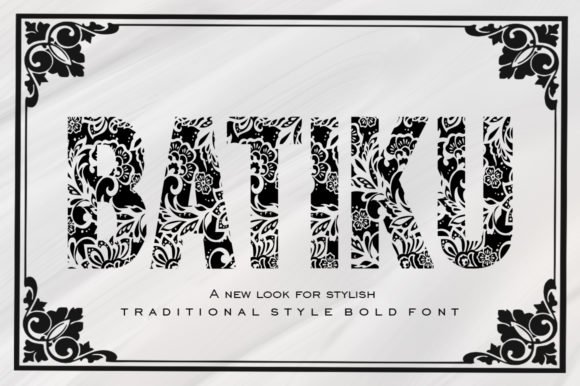
Unleash the Beauty of Batiku Font: Elevate Your Designs
Have you ever stumbled upon a design that perfectly captures the essence of a cultural heritage, transporting you to a world of vibrant colors and intricate patterns? For designers, it’s that magical moment when creativity meets inspiration – and it’s exactly what the Batiku Font embodies.
As a decorative font inspired by the traditional batik style, the Batiku Font is designed to add a touch of elegance and uniqueness to various creative projects. Whether it’s a company name, anniversary, wedding invitation, or t-shirt design, this captivating font is sure to leave a lasting impression. For designers, the Batiku Font is a valuable addition to their toolkit, offering a distinctive flair that sets their designs apart from the ordinary.
With its stunning beauty and versatility, the Batiku Font is an essential resource for designers looking to elevate their craft and create truly memorable designs.
Batikku Font Key Features
- Unique Characteristics: Batikku Font features a unique blend of traditional and modern design elements, with intricate patterns and motifs inspired by Batik art.
- Font Weight: The font family includes light, regular, bold, and extra bold weights, allowing designers to achieve a range of visual effects and emphasis.
Batikku Font Review
At first glance, Batikku Font seems to capture the essence of traditional Indonesian batik designs. The intricate patterns and lines ✨ make it a great choice for projects that require an exotic, cultural touch. The font’s unique aesthetic is perfect for branding, logos, or any design that needs to stand out from the crowd.
However, I do have some concerns about the font’s limitations. The Batikku Font is not optimized for digital use, which means it may not display well in smaller sizes or on lower-resolution screens ⚠️. Additionally, the font’s intricacy can make it difficult to read in certain situations, particularly in long blocks of text.
Overall, I think the Batikku Font is a great choice for designers who want to add a touch of cultural authenticity to their projects. However, it’s essential to consider the font’s limitations and use it judiciously to avoid any readability issues.
Here are some key points to consider:
- Unique and culturally authentic aesthetic ✨
- Perfect for branding, logos, or unique design elements
- May not display well in smaller sizes or on lower-resolution screens ⚠️
- Can be difficult to read in long blocks of text
- Best suited for projects where cultural authenticity is crucial
Tips for Getting the Most Out of Batiku Font
1. Use Batiku Font for decorative or title text.
2. Experiment with different font sizes and colors to create visual interest.
3. Pair Batiku Font with other fonts to create a unique typography style.
Alternatives to Batiku Font